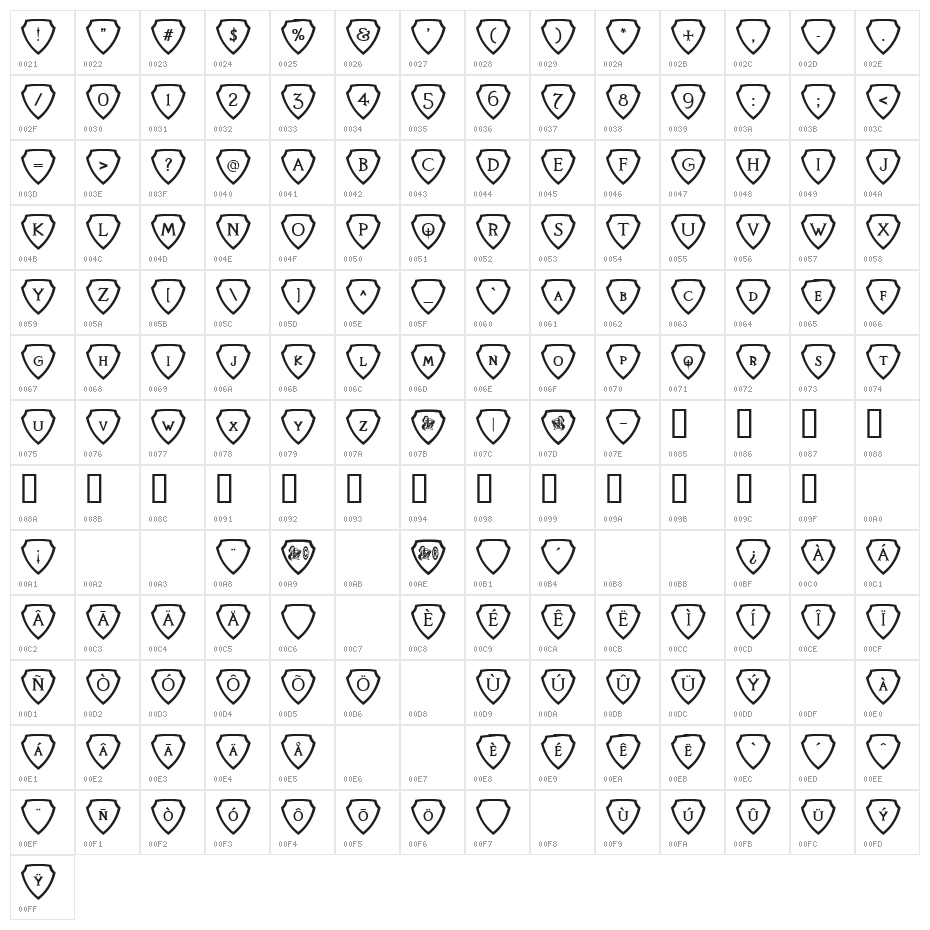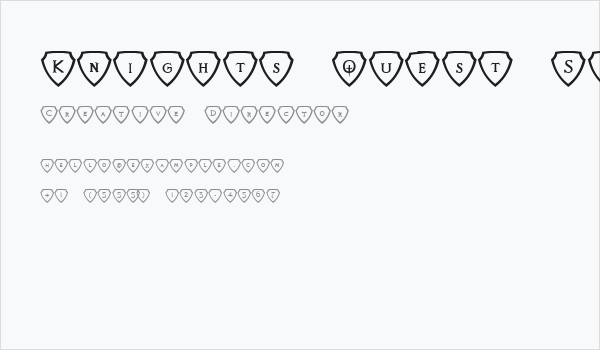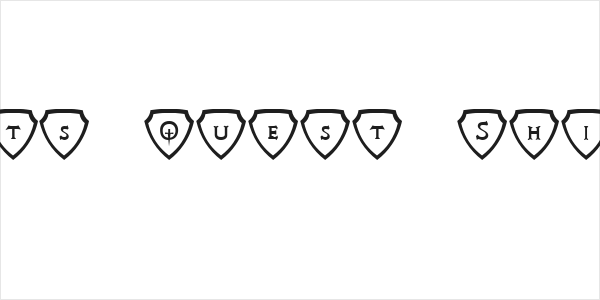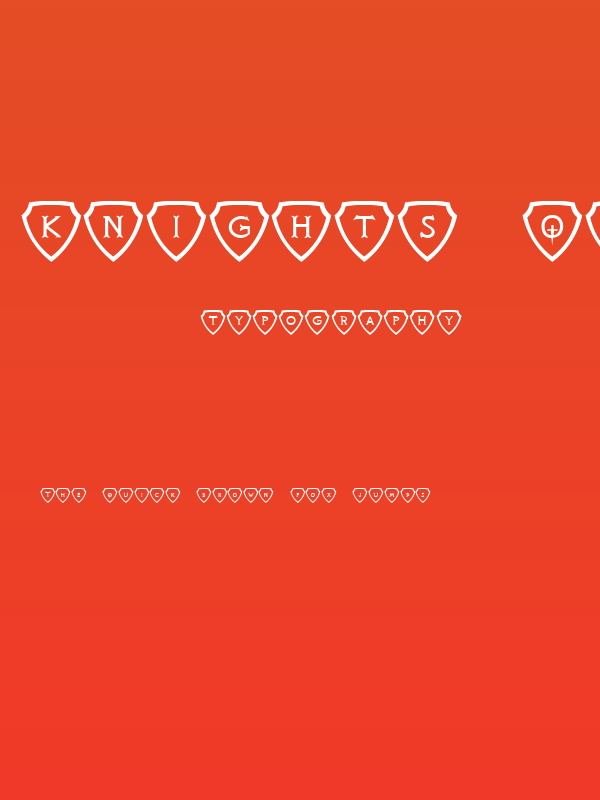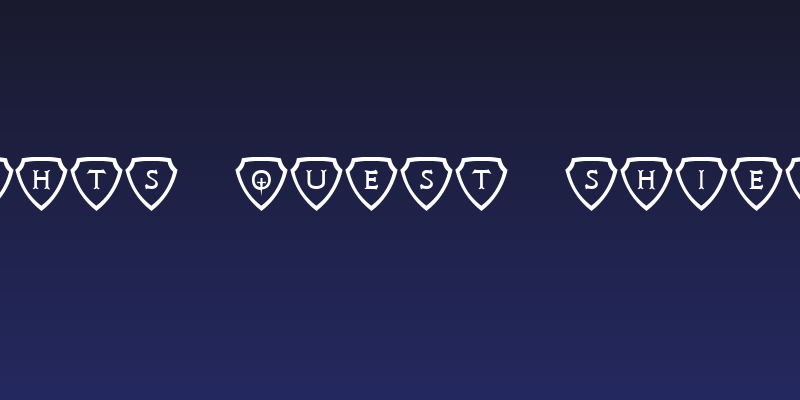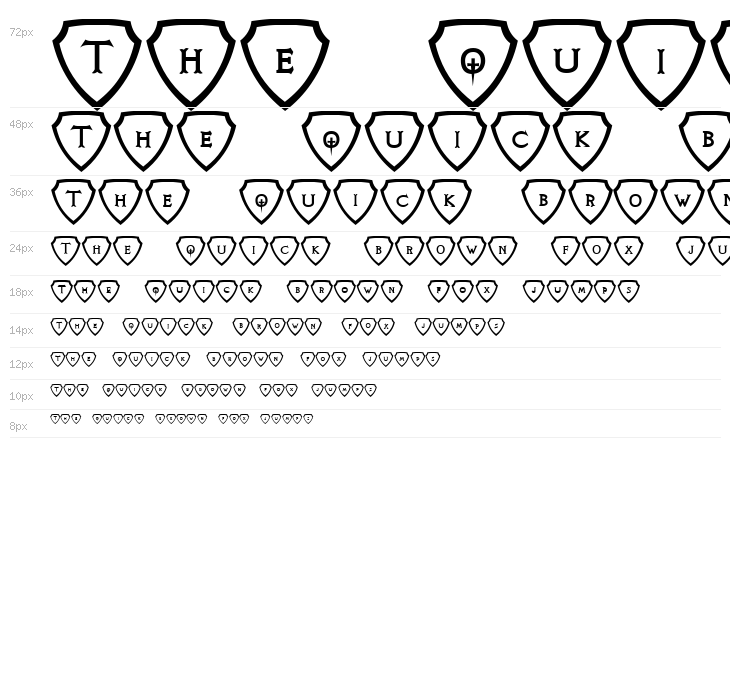
Knights Quest Shielded Font
Knights Quest Shielded Description
This font features characters encased in shield-like shapes, giving it a medieval and heraldic appearance. The letters are bold and clear, with a slight serif style that adds to the traditional feel. Each character is centered within its shield, providing a uniform and structured look. The numbers and special characters follow the same design, ensuring consistency across all elements. This font is ideal for projects that require a strong, historical, or fantasy theme, as it evokes imagery of knights and quests.
| Overall Style | Medieval, Decorative |
| Proposed Projects | Ideal for fantasy-themed games, medieval event posters, historical book covers, or any project requiring a strong, traditional aesthetic. |